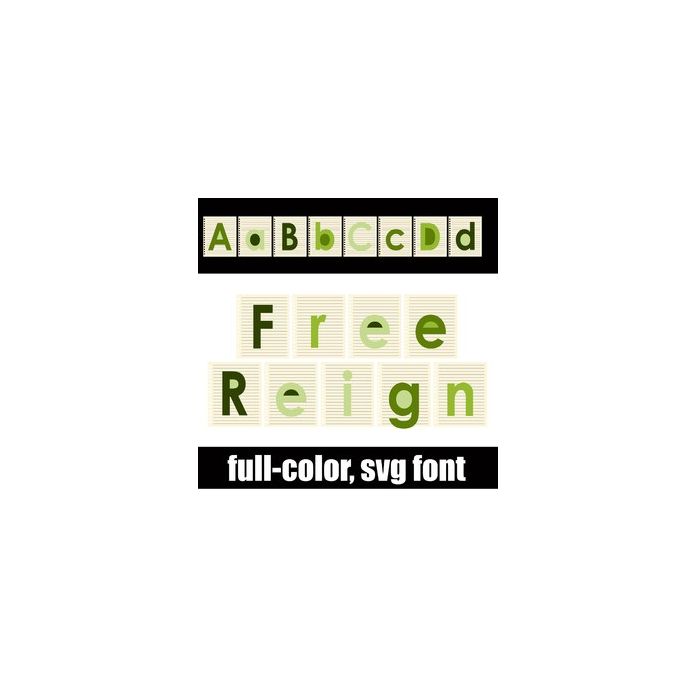
This full-color font features green lettering on little notes. There is an alt upper and lowercase with additional colors that you can access through Silhouette's glyph map.